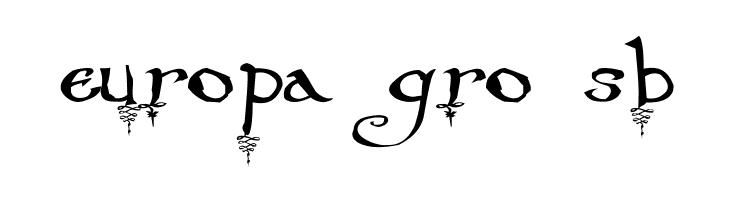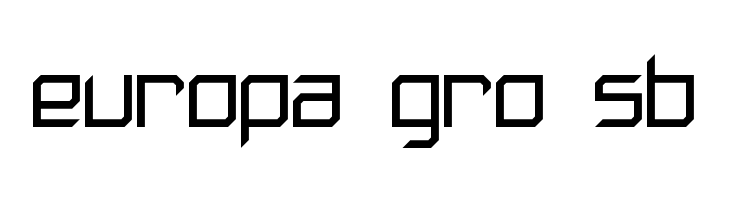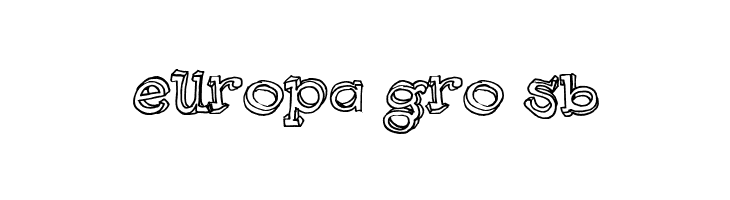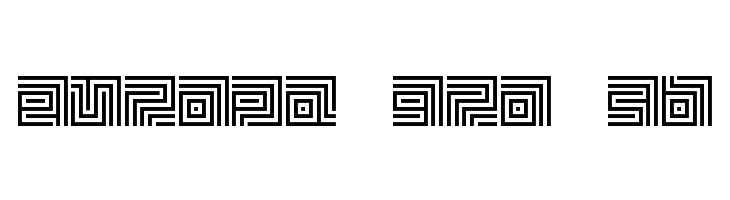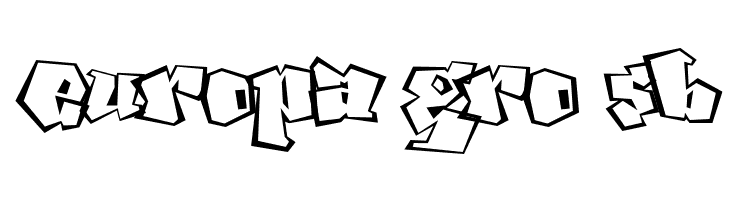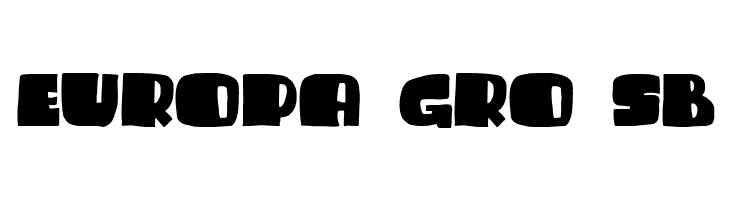
An ornate, gothic-style font with intricate embellishments and whimsical details.
A bold, playful font with thick strokes and rounded edges.
A geometric, angular font with a futuristic and modern design.
Bold, graffiti-inspired font with angular, geometric shapes and a 3D effect.
A bold, angular font with a modern and edgy style.
An ornate and decorative font with intricate flourishes and embellishments.
A playful, hand-drawn font with bold outlines and a whimsical style.
A whimsical and decorative font with celestial embellishments and swirling accents.